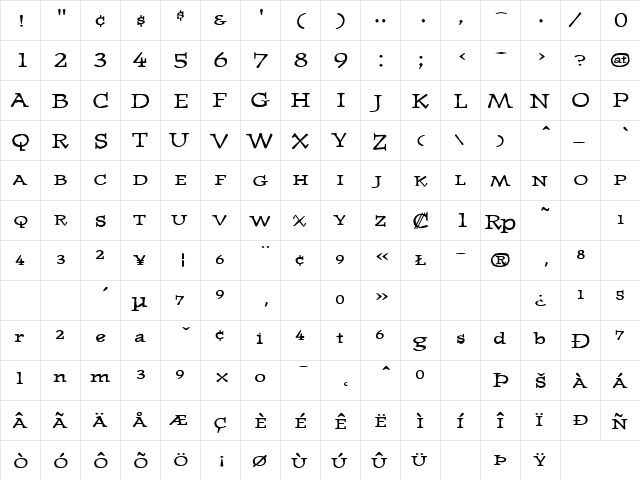
JournalUltraSmallcaps Regular Font Preview
JournalUltraSmallcaps Regular
Design Context for JournalUltraSmallcaps Typeface
JournalUltraSmallcaps offers clean, dependable letterforms without strong stylistic allegiance, making it a practical choice for designers who need flexibility.
Pro Tip: Use JournalUltraSmallcaps in both headline and body roles to test its range before committing to a single application.